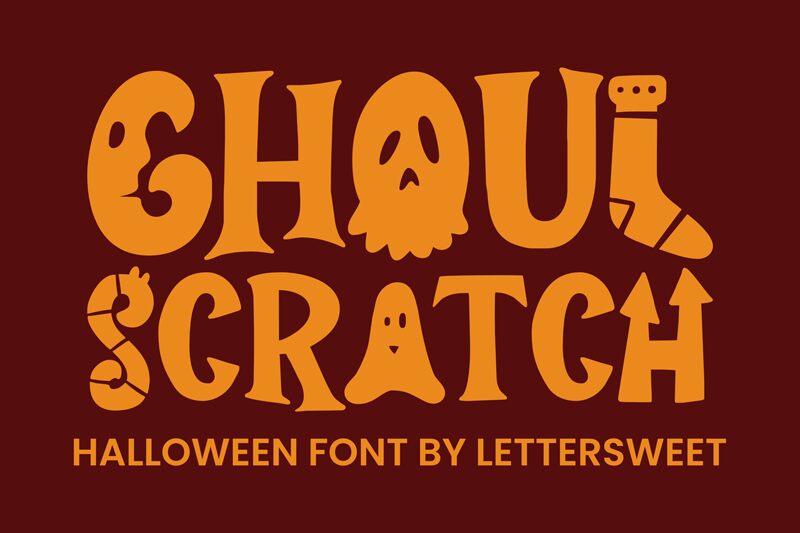
Ghoul Scratch font by Lettersweet Studio is a free Halloween display font. Its chunky, hand-hewn letters look clawed and gouged, with ragged edges and inky bites that feel freshly scratched into wood. The rhythm is bold and irregular in a way that reads fast at a distance, giving headlines a spooky pop without turning illegible.
Using Ghoul Scratch, you can punch up haunted house posters, trick-or-treat bags, party invites, yard signs, social posts, and YouTube thumbnails. This free font shines when set big with a touch of extra letter spacing so the cuts and gouges breathe. Pair it with a clean, neutral sans for body copy to keep the chills on the headline where they belong.